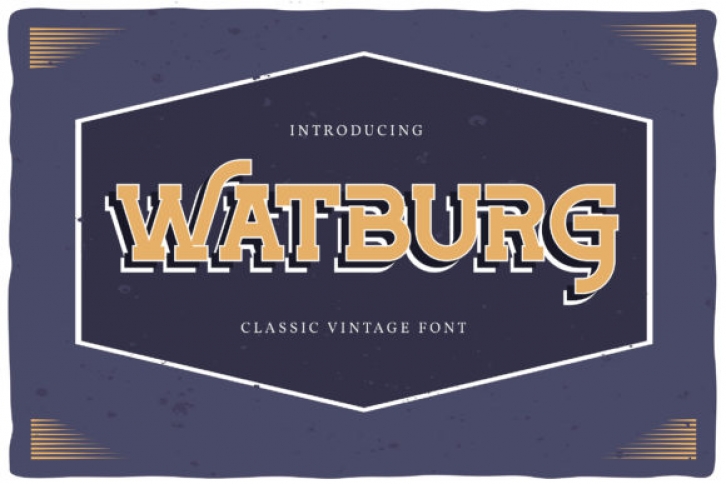
Watburg is a bold, vintage styled and thick lettered display font. This original look will appeal to a wide range of crafty ideas, from letterheads and titles, to stationery.